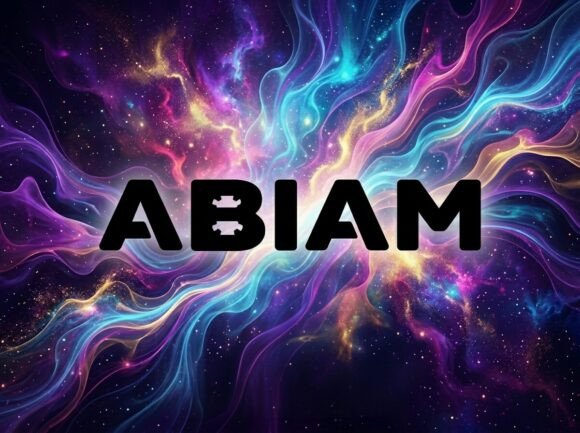
Abiam Font: Elevate Your Designs to Cosmic Heights
Are you ready to take your designs to the next level? Look no further than Abiam, a futuristic display font that’s out of this world. With its ultra-bold, wide letterforms and unique geometric construction, Abiam is the perfect choice for designers and crafters who want to make a galactic impact.
The Science of Abiam
Abiam’s design is rooted in the principles of high-tech machinery and deep-space exploration. The font features subtle “sliced” apertures that give it a distinctive, otherworldly feel. This attention to detail creates a sense of depth and dimensionality, making Abiam perfect for sci-fi gaming titles, innovative tech logos, aerospace branding, and high-impact cinematic headers.
A Font that’s Truly Out of this World
Abiam’s heavy visual weight and clean, rounded corners provide a sophisticated yet powerful aesthetic that’s sure to turn heads. Whether you’re crafting a brand identity for a digital startup or a standout title for a futuristic campaign, Abiam delivers a sense of forward-thinking energy and unyielding cosmic power.
Endless Possibilities with Abiam
Abiam’s versatility is one of its greatest strengths. Here are just a few examples of how you can use this incredible font:
• Sci-fi gaming titles: Abiam’s bold, futuristic design makes it perfect for game titles, character names, and UI elements.
• Innovative tech logos: Use Abiam to create a logo that showcases your company’s cutting-edge approach to technology.
• Aerospace branding: Abiam’s cosmic vibe makes it a natural fit for aerospace companies, space agencies, and private space exploration initiatives.
• High-impact cinematic headers: Make a bold statement with Abiam’s eye-catching design, perfect for movie titles, trailers, and posters.
Why Choose Abiam?
So why choose Abiam over other fonts? Here are just a few reasons:
• Unique design: Abiam’s geometric construction and subtle “sliced” apertures set it apart from other fonts.
• High-impact: Abiam’s bold design demands attention and makes a lasting impression.
• Versatile: Abiam can be used for a wide range of applications, from digital startups to cinematic headers.
• Easy to read: Despite its bold design, Abiam remains easy to read, even at smaller sizes.
Getting Started with Abiam
Ready to launch your designs into the next dimension with Abiam? Here are some tips for getting started:
• Experiment with different sizes: Abiam’s bold design works well at a range of sizes, from large display headers to smaller body text.
• Play with color: Abiam’s futuristic design looks great in a range of colors, from bright neon hues to metallic silvers and chromes.
• Combine with other fonts: Abiam pairs well with a range of other fonts, from clean sans-serifs to bold script fonts.
Abiam is more than just a font – it’s a design statement. With its unique geometric construction, subtle “sliced” apertures, and bold visual weight, Abiam is the perfect choice for designers and crafters who want to make a galactic impact. Whether you’re working on a sci-fi game, a tech startup, or a cinematic project, Abiam has the power to elevate your designs to cosmic heights. So why wait? Download Abiam today and launch your designs into the next dimension!